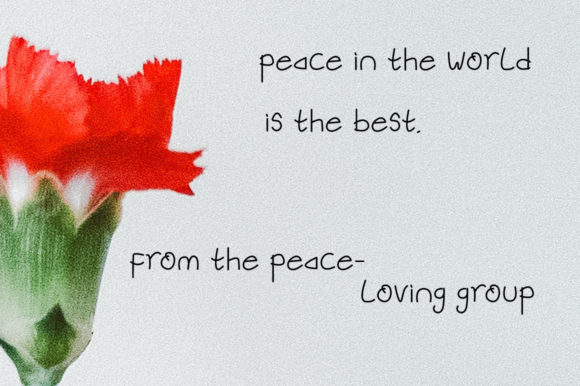
About Sago Font
Sago is inspired by classic typography and brings its own unique style to any design project. Its casual charm makes it appear wonderfully down-to-earth, readable and, ultimately, incredibly versatile. Sago will look outstanding in any context, whether it’s being used on busy backgrounds or as a standalone headline!